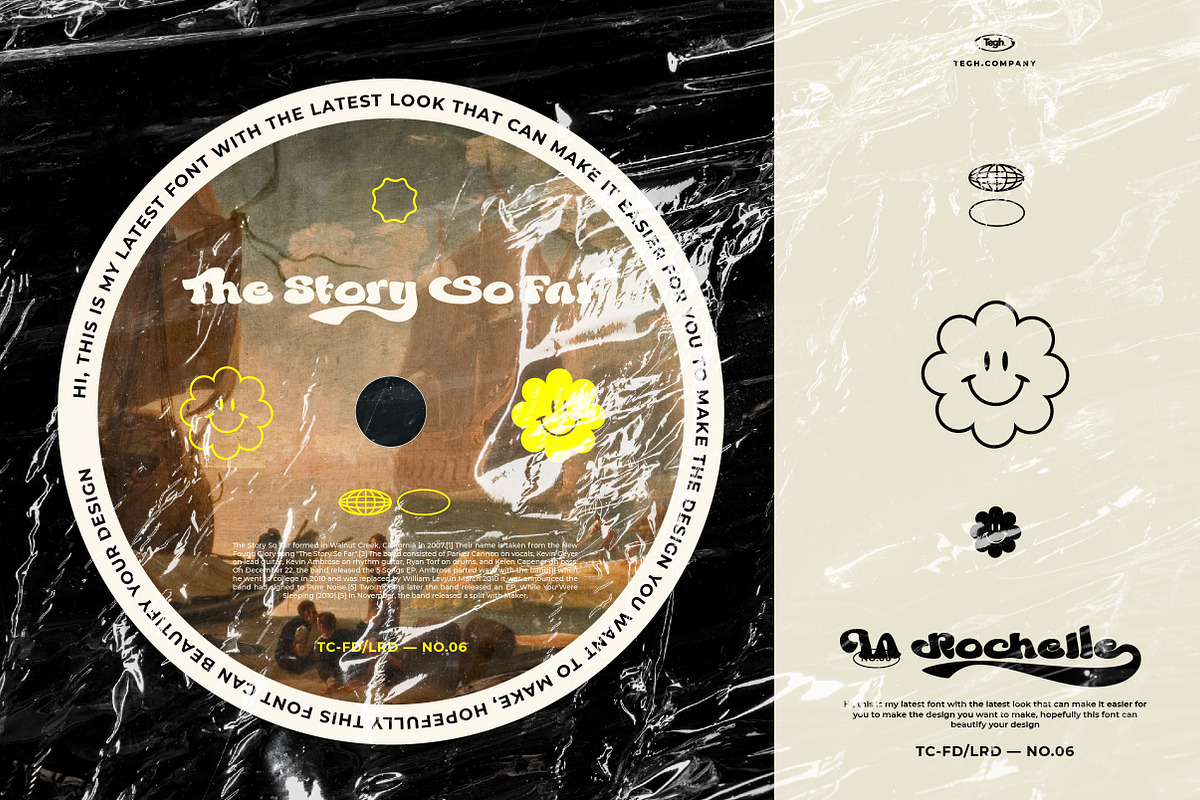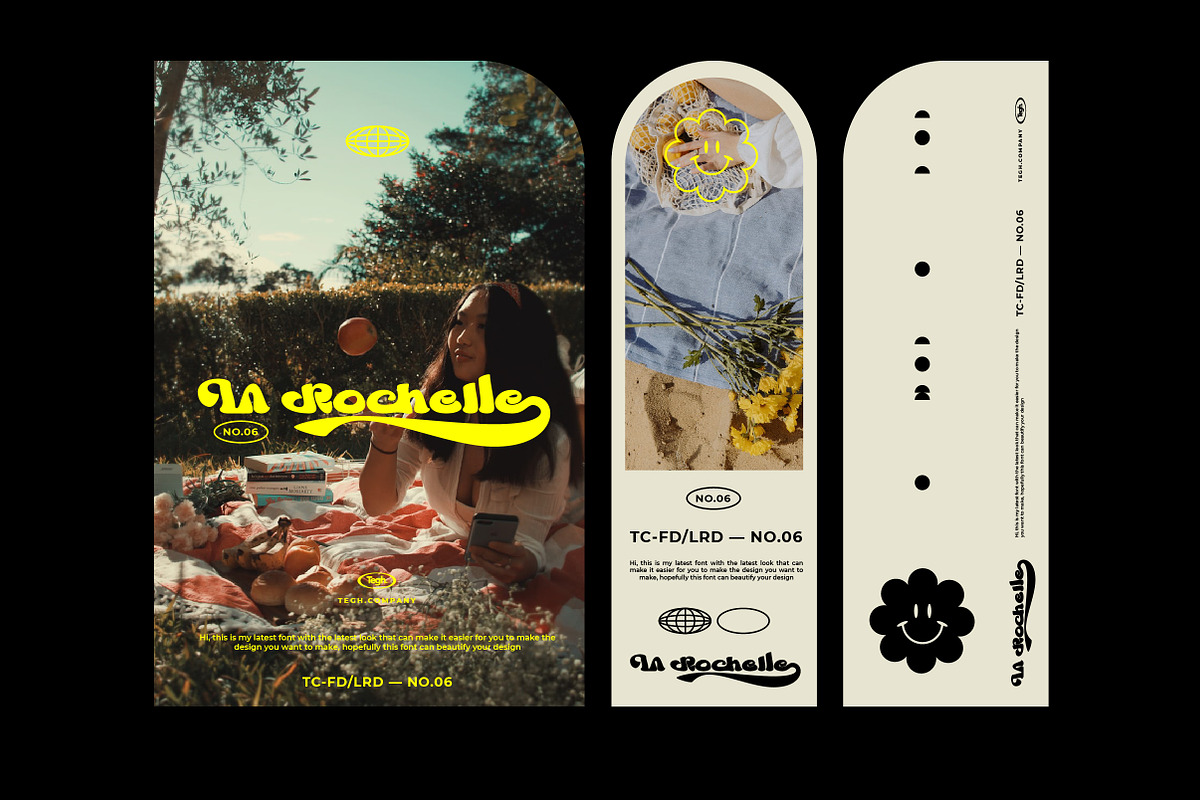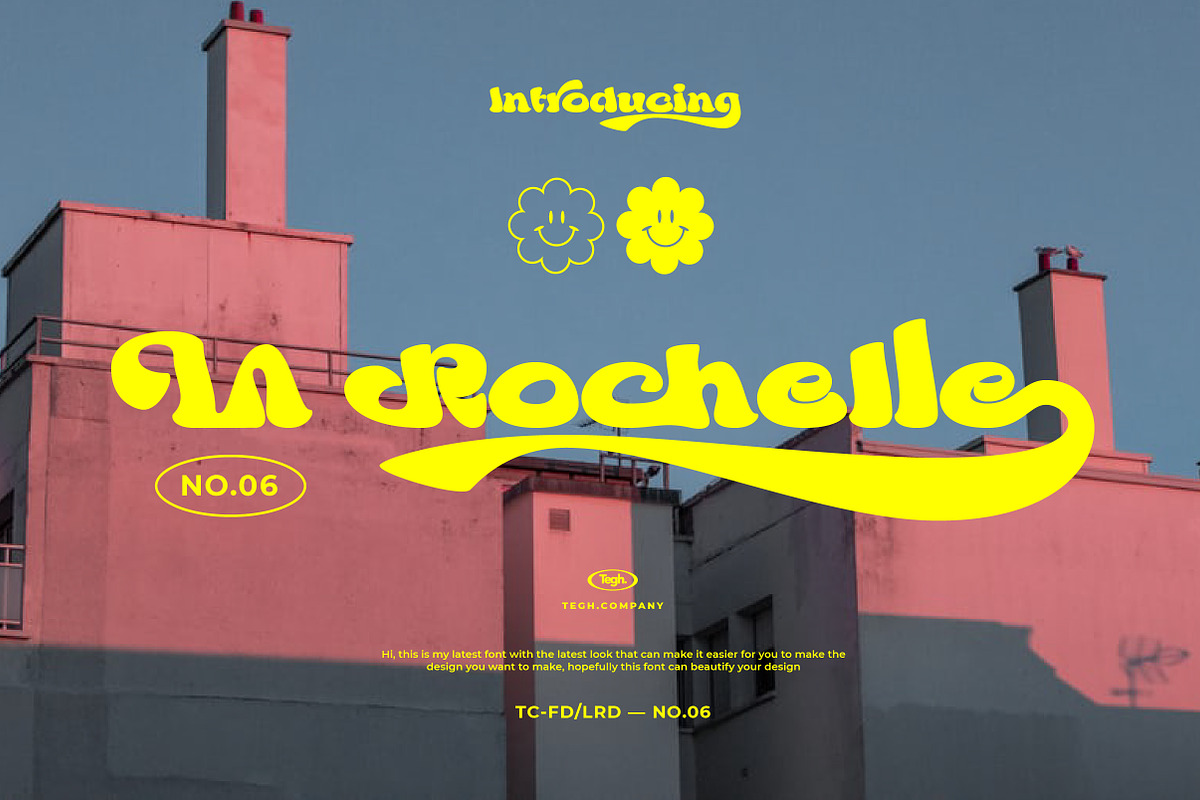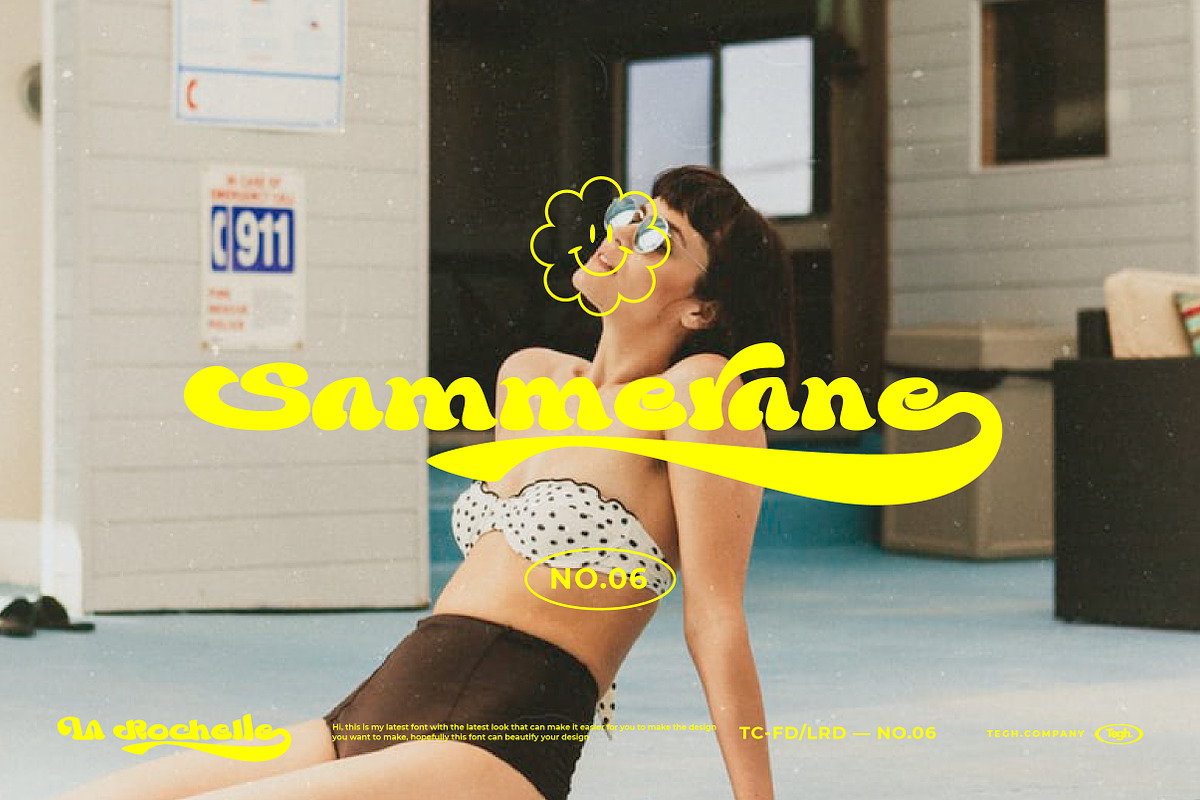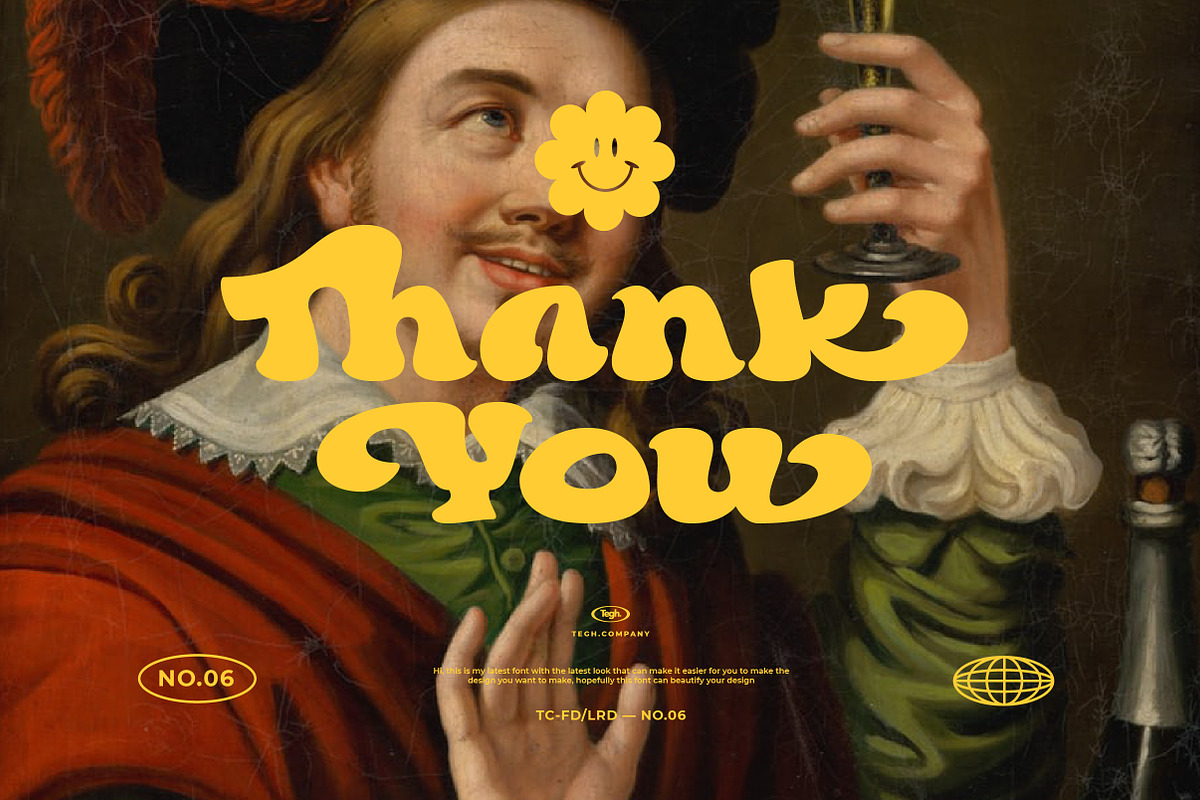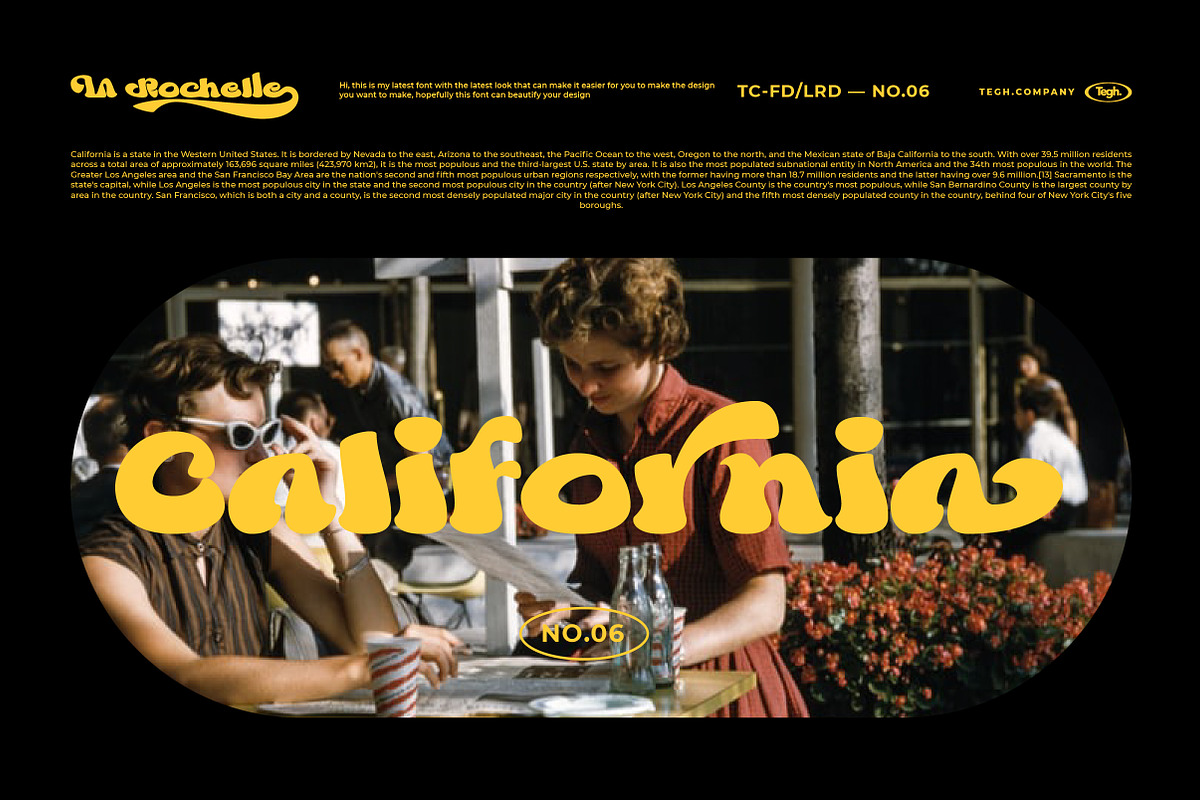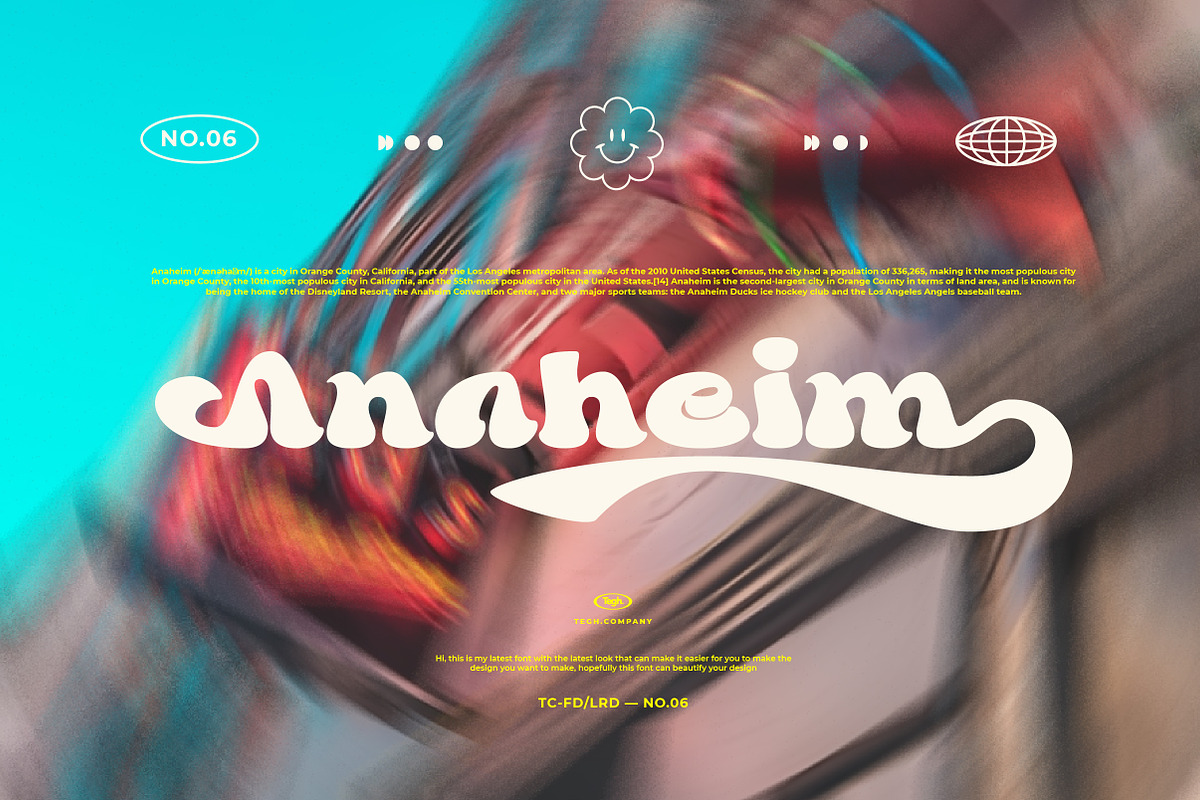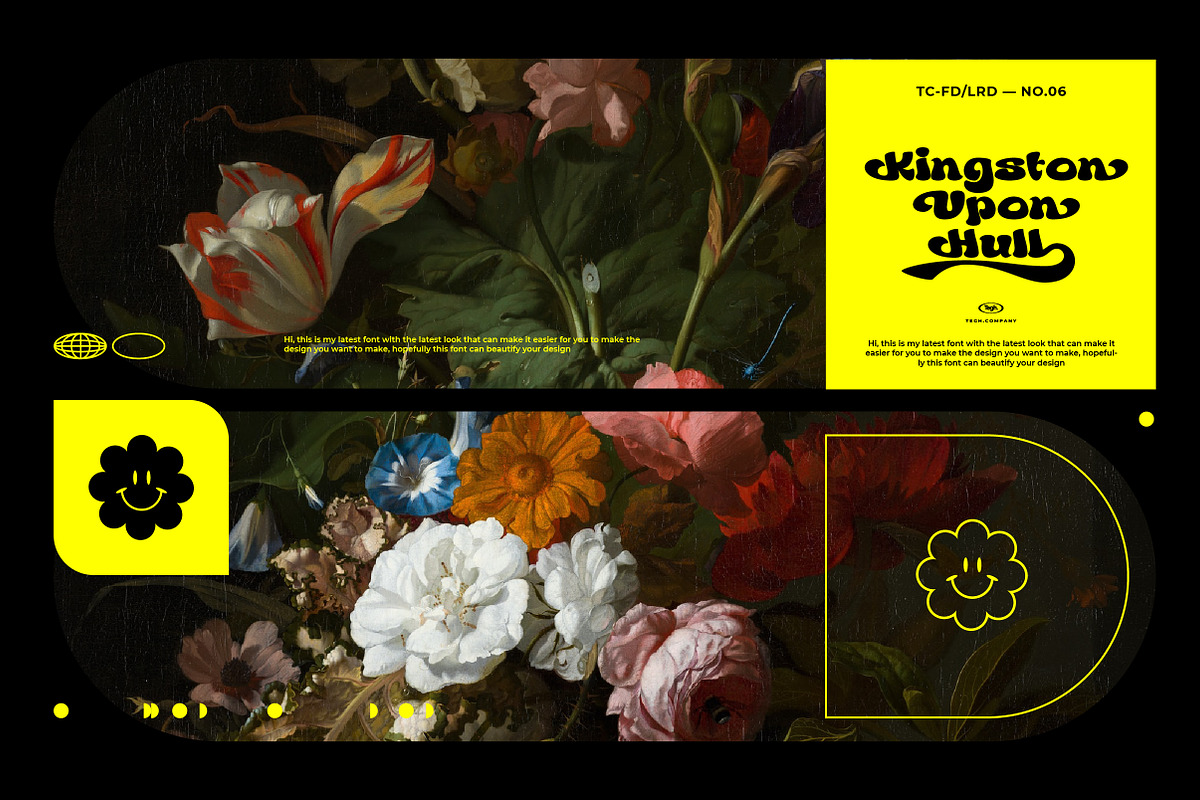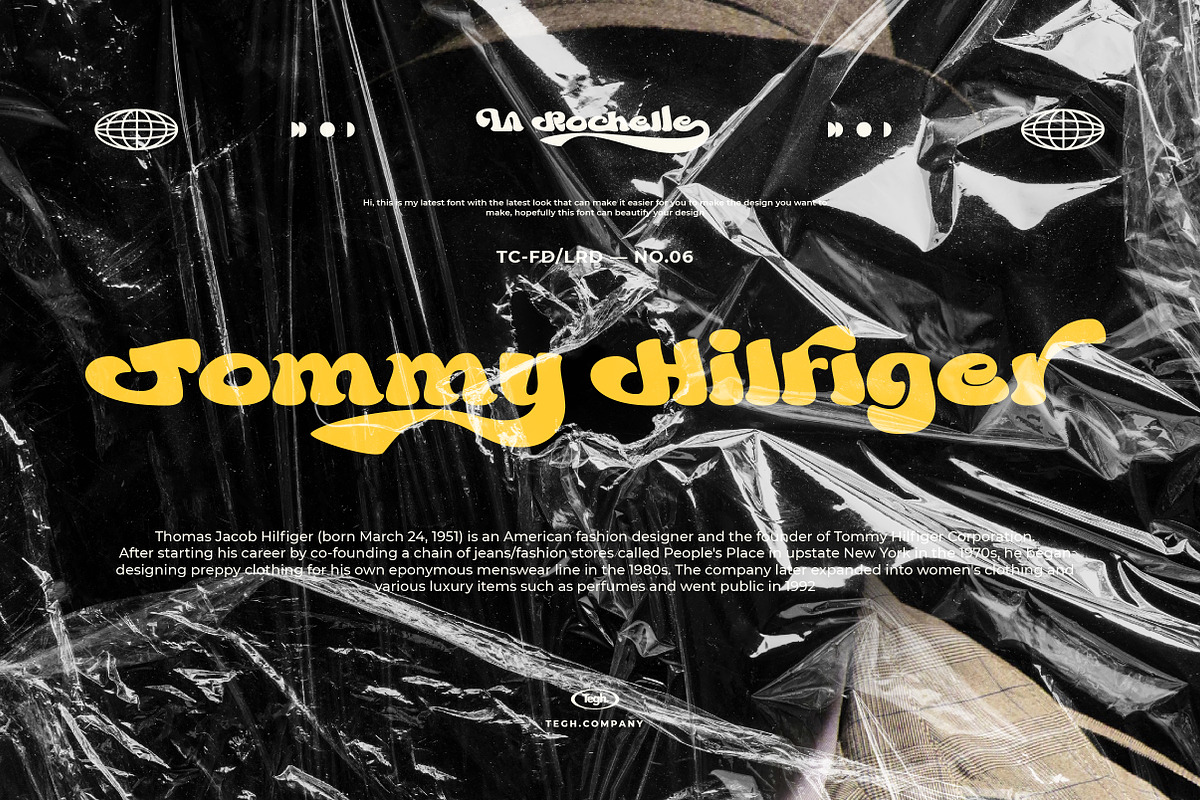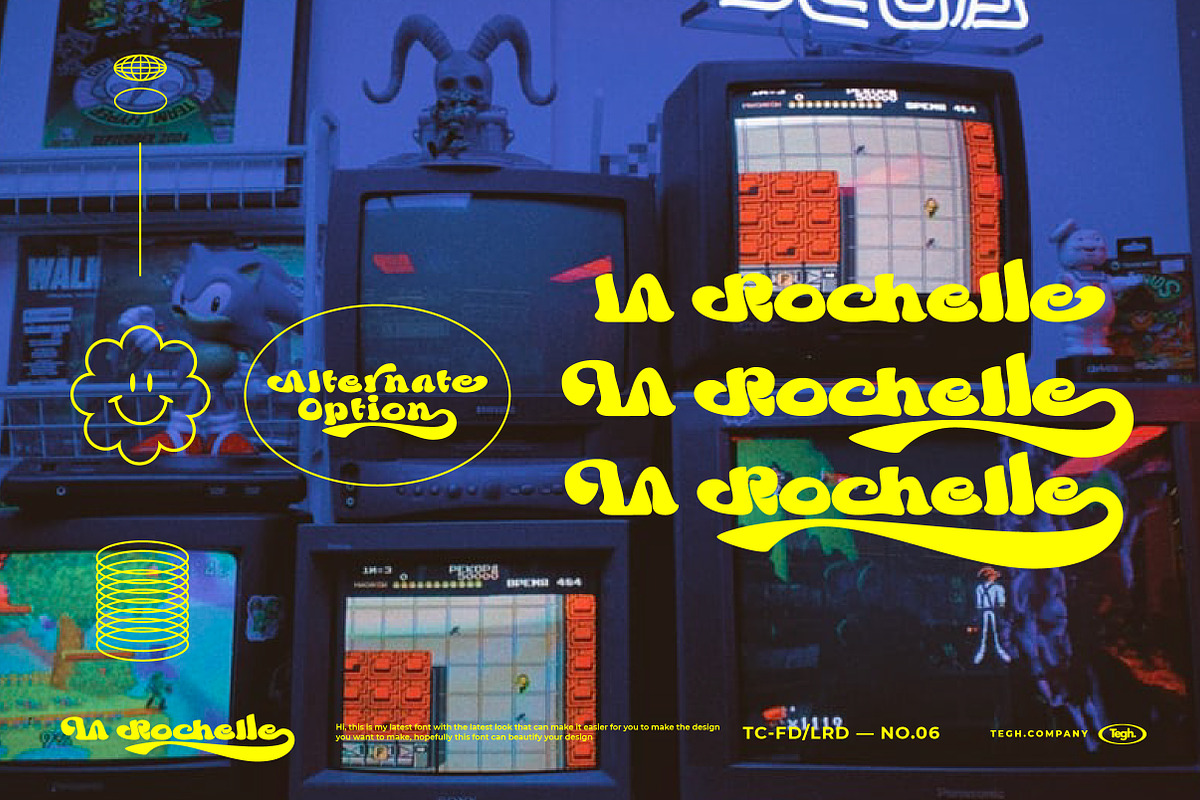
La Rochelle Display
Hi, this is my newest font LA ROCHELLE with the latest look that can make it easier for you to make the design you want to make, hopefully this font can beautify your design please try...
I want to make a font that makes it easier for me to do designs such as illustration and other design needs, and I decided to create a new font. I want to make a font that makes it easier for me to do designs such as illustrations and others. design needs, and I decided to create a new unique letter that has a classic modern feel. the letters I created are perfect for your design needs. Scandinavian fits perfectly with nostalgic moodboards and vintage logos. It comes with unique lowercase and uppercase letters plus numbers, punctuation marks & multilingual letters.